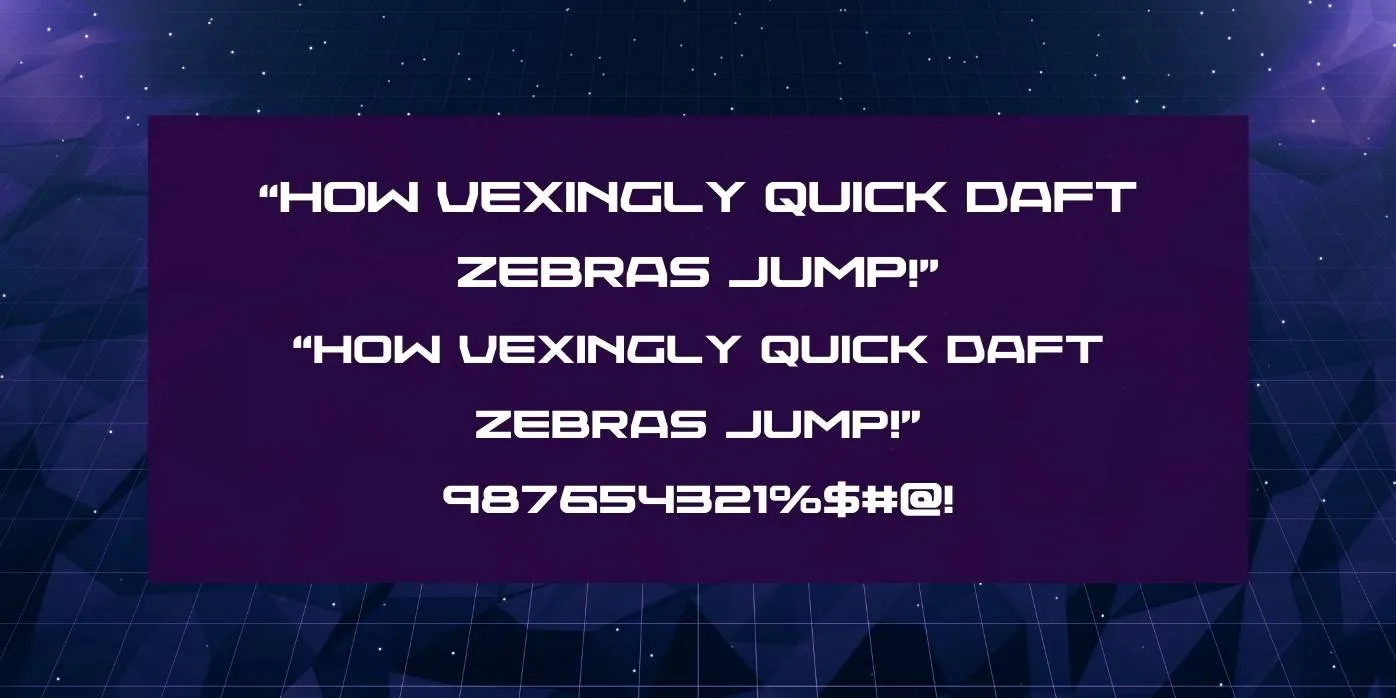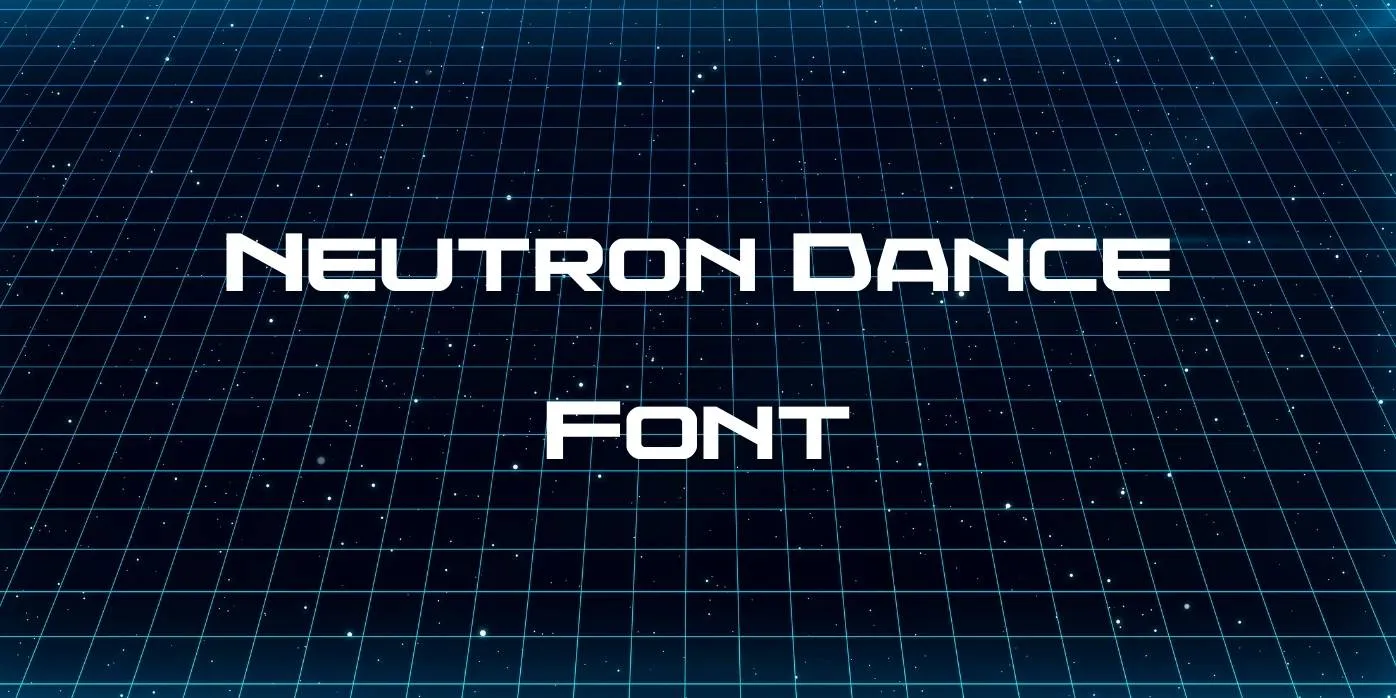
Neutron Dance Font
Here we discuss Neutron Dance Font in detail. Neutron Dance Font was designed by Daniel Zadrozny and published by Iconian Font. This font contains different 20 styles and was launched in 2014 and has many elements like characters, small letters, capital letters, symbols, punctuations, symbols numbers, and special characters. This stunning typeface provides the facility of an online generator tool which makes your project efficient working.
It falls in the category of Techno. You can be used on many devices such as Windows/MAC, Linux, IOS, and Android. It consists of 252 characters and the number of glyphs is 222. Its weight is normal and its width is Medium(normal).
This font supports OTF (OpenType Font) file format. Usage This font is a very elegant and interesting font. You can pair it with konichiwa font to make a more attractive and bolder look. You can be used for making logos, branding, and especially headlines.
This font is designed by Daniel Zadrozny. It was published by Iconian Font. This font contains different 20 styles. It was launched in 2014.